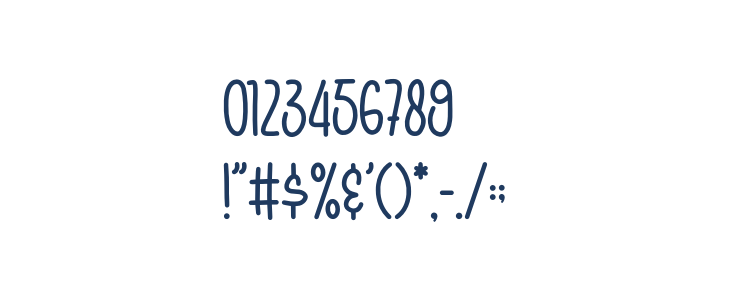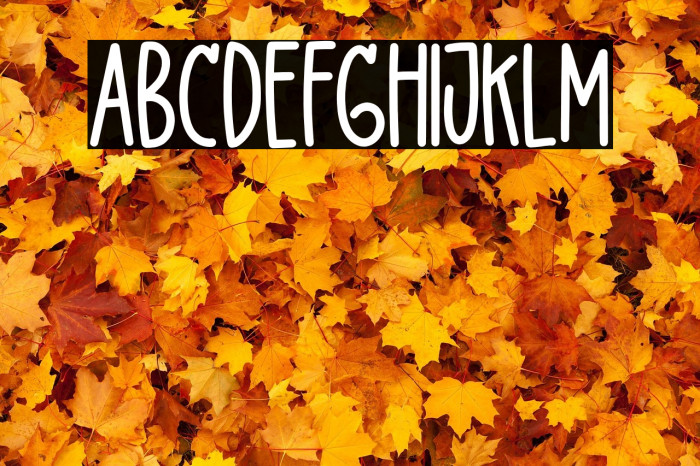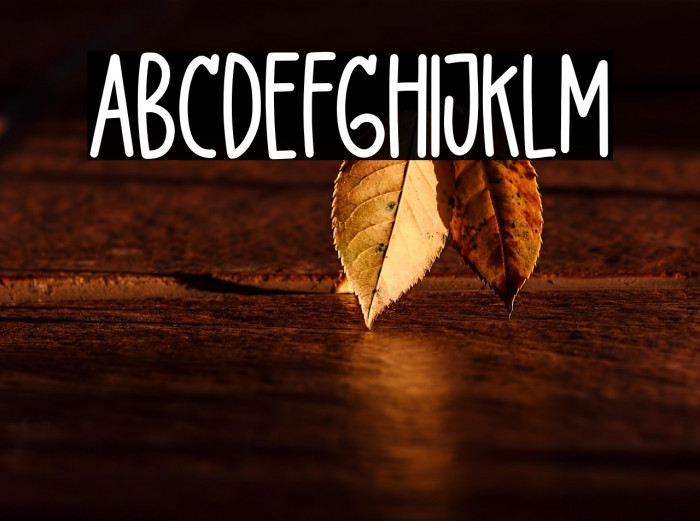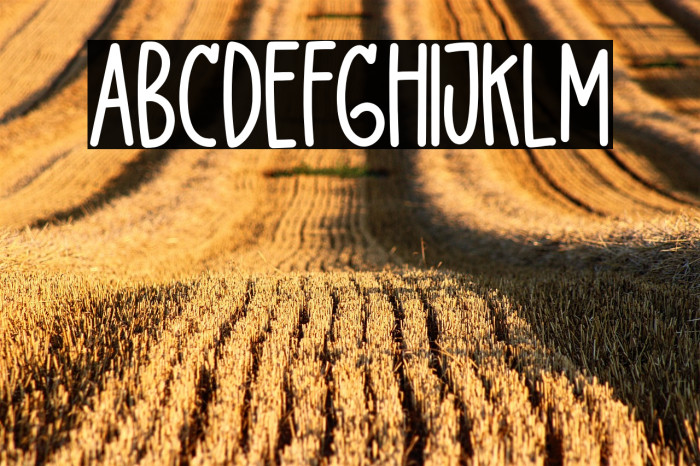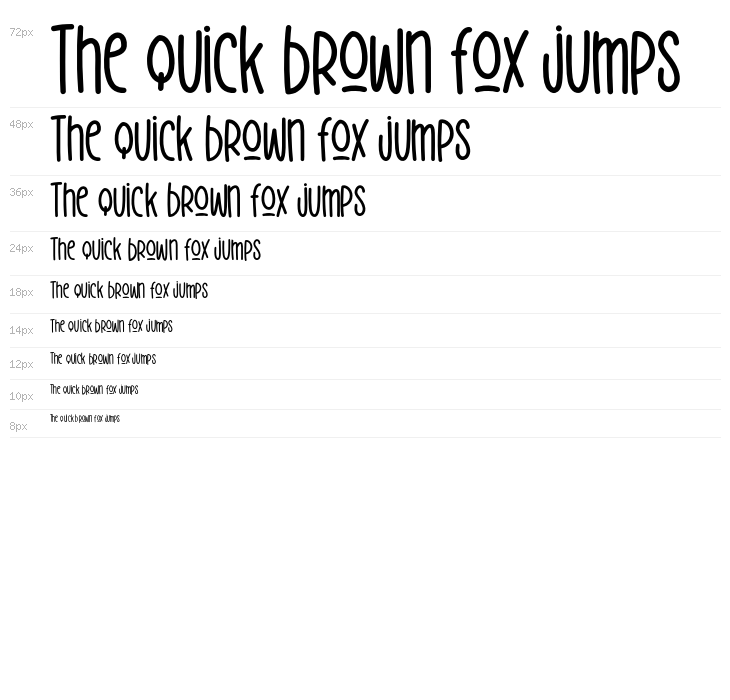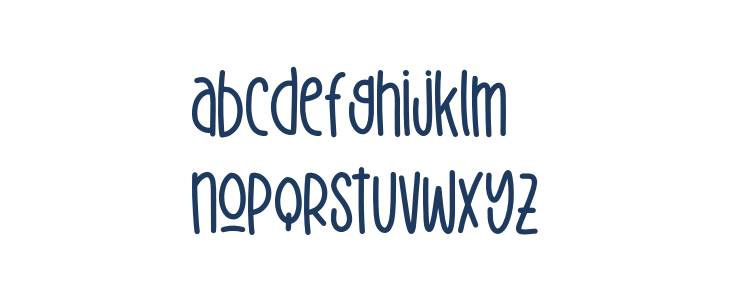
DelightLove Font
This font features a playful and whimsical design, characterized by its rounded and slightly elongated letterforms. The strokes are consistent in width, giving it a uniform appearance. The uppercase and lowercase letters maintain a friendly and approachable style, making it suitable for casual and informal contexts. The numerals and special characters are designed to match the overall aesthetic, ensuring cohesion across all elements. This font's unique charm lies in its ability to convey a sense of fun and creativity, making it ideal for projects that require a lighthearted and engaging touch.
| Overall Style | Playful |
| Proposed Projects | Ideal for children's books, greeting cards, playful branding, and social media graphics. |